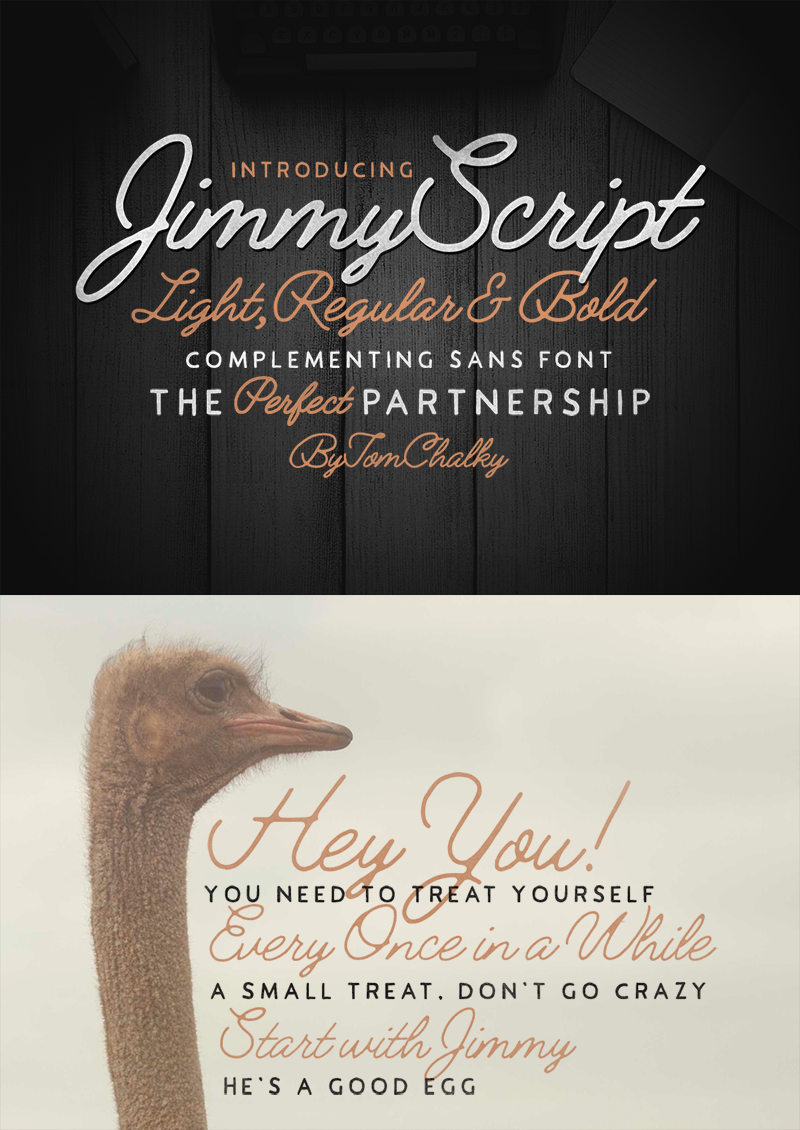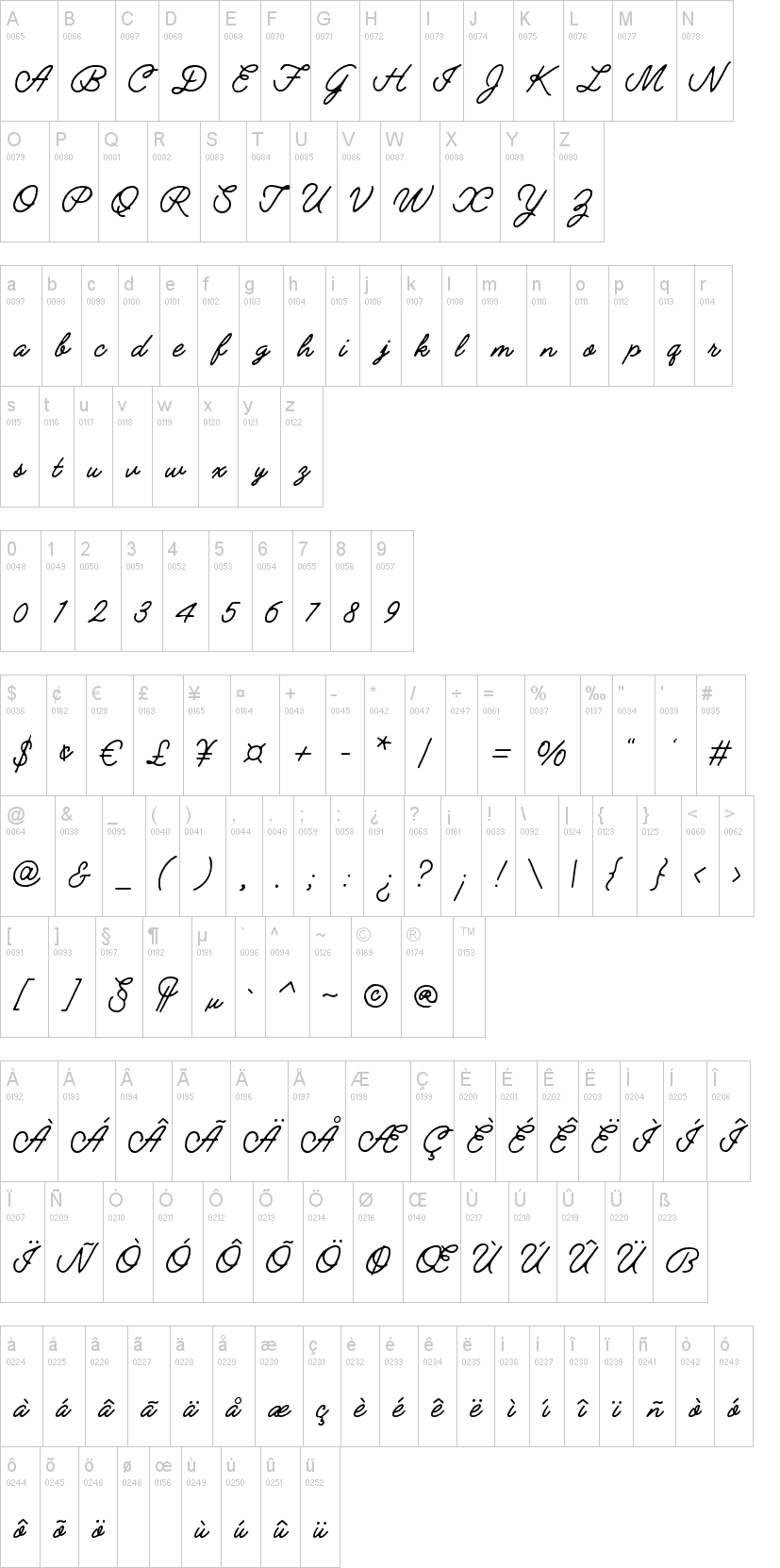
Note of the authorIm pleased to share with you my Jimmy script font. Its design was inspired by the modern vintage trend that is sweeping the design industry.